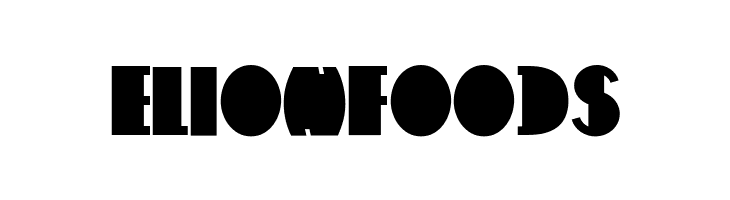
• Flatiron NF
• Walrus Gumbo NF
A bold, playful font with chunky, rounded characters and a whimsical style.
• Chrome Yellow Inline NF
A bold, decorative font with an inline, three-dimensional style.
• Indochine NF
A bold, geometric font with angular, block-like characters.
• Calamity Jane NF
An elegant, decorative font with intricate swirls and vintage charm.
• Nickley NF
A bold, angular font with a futuristic and geometric style.
• Speedball No 2 Bold NF
• Indubitably NF
A bold, high-contrast serif font with strong, angular serifs and a commanding presence.
• Chocolate Drops NF
A bold, retro-style font with a 3D shadow effect.
• Skittles n Beer NF
A bold, modern font with sharp angles and unique serifs.